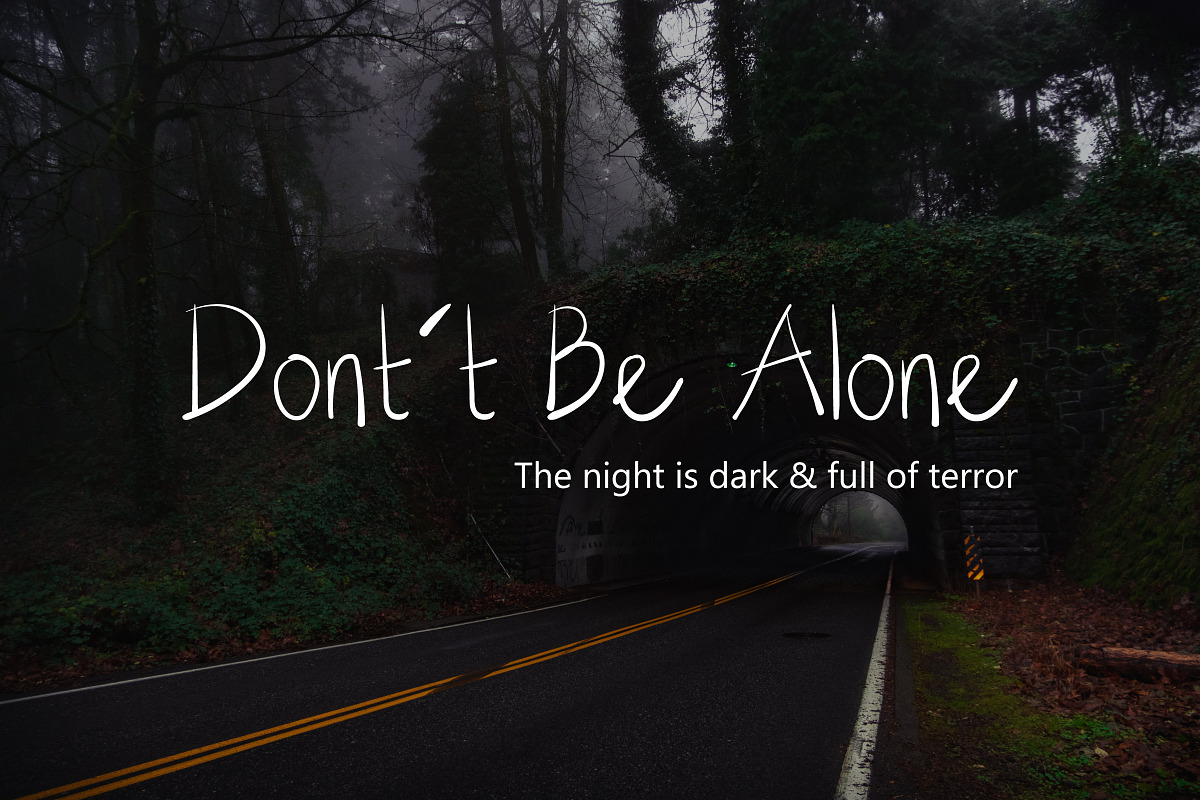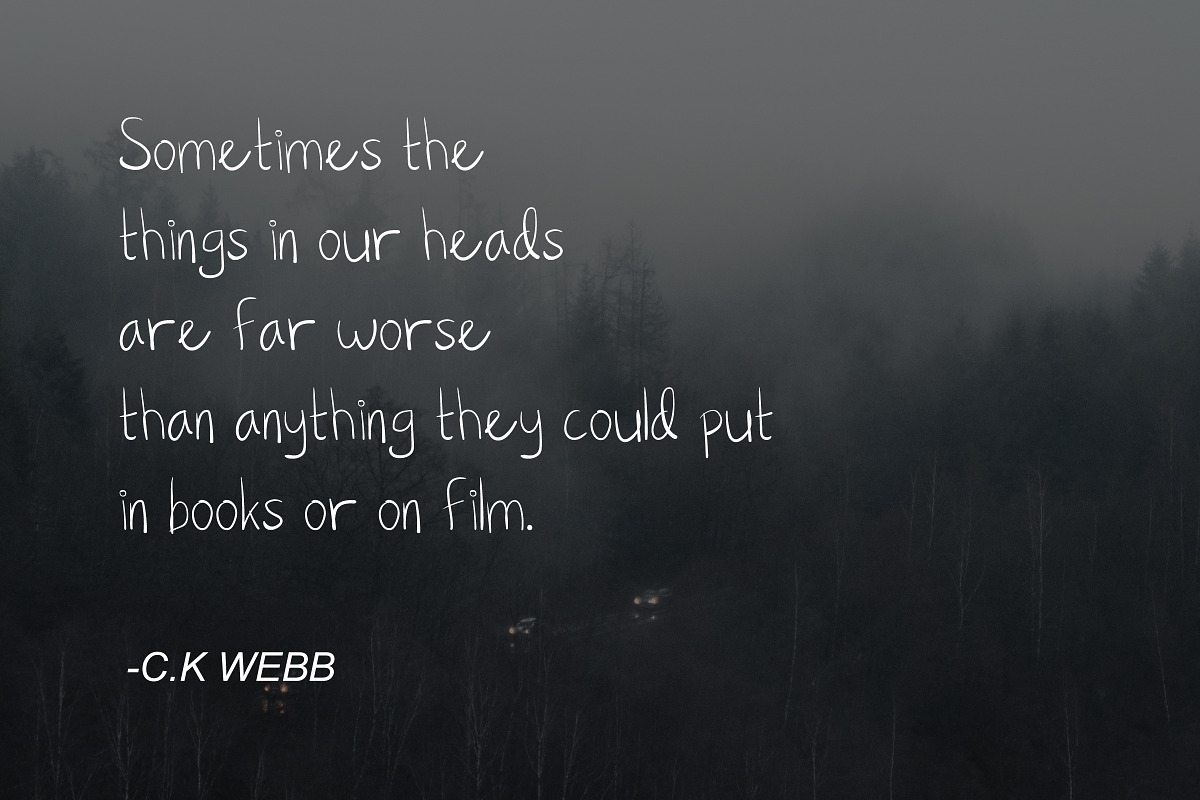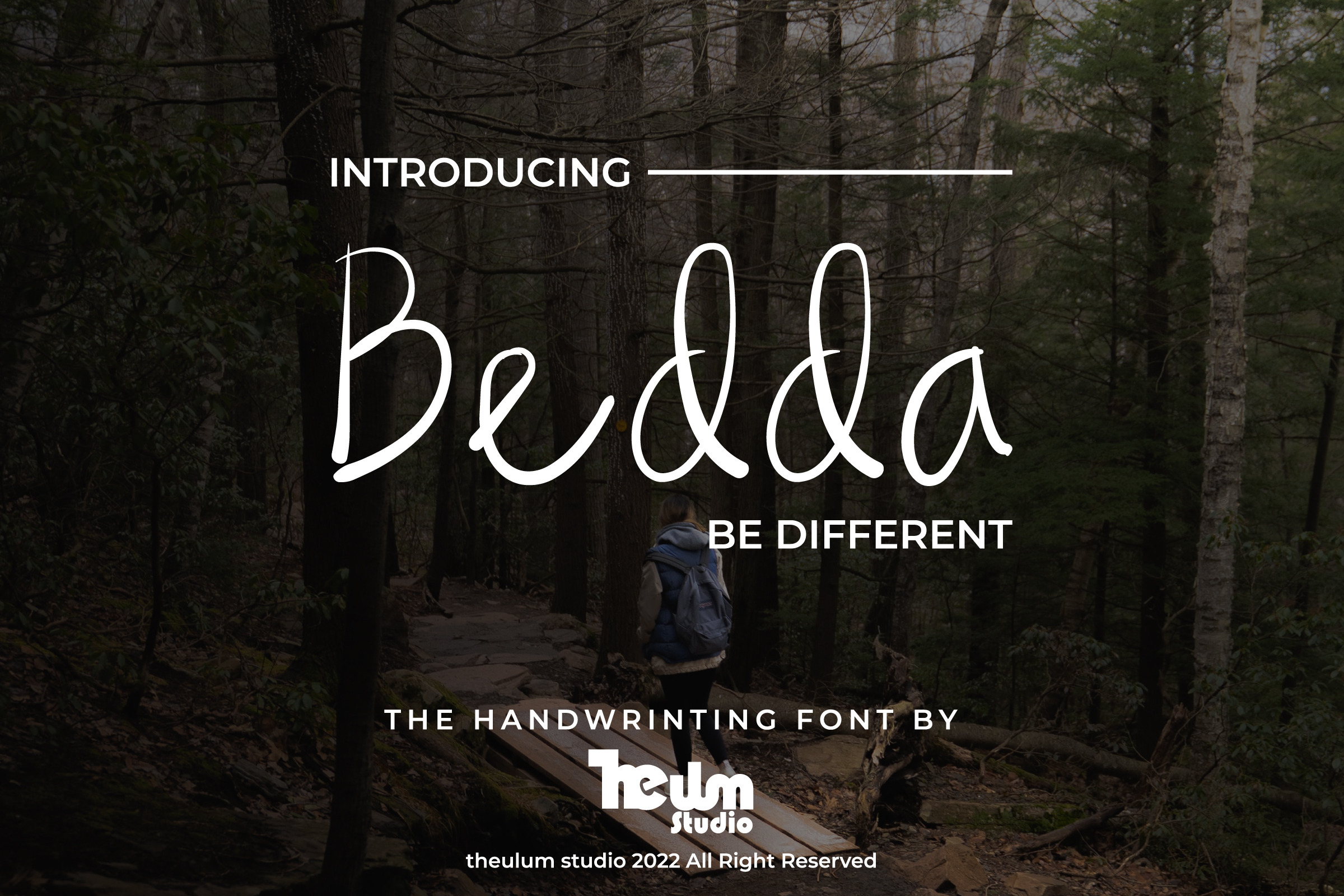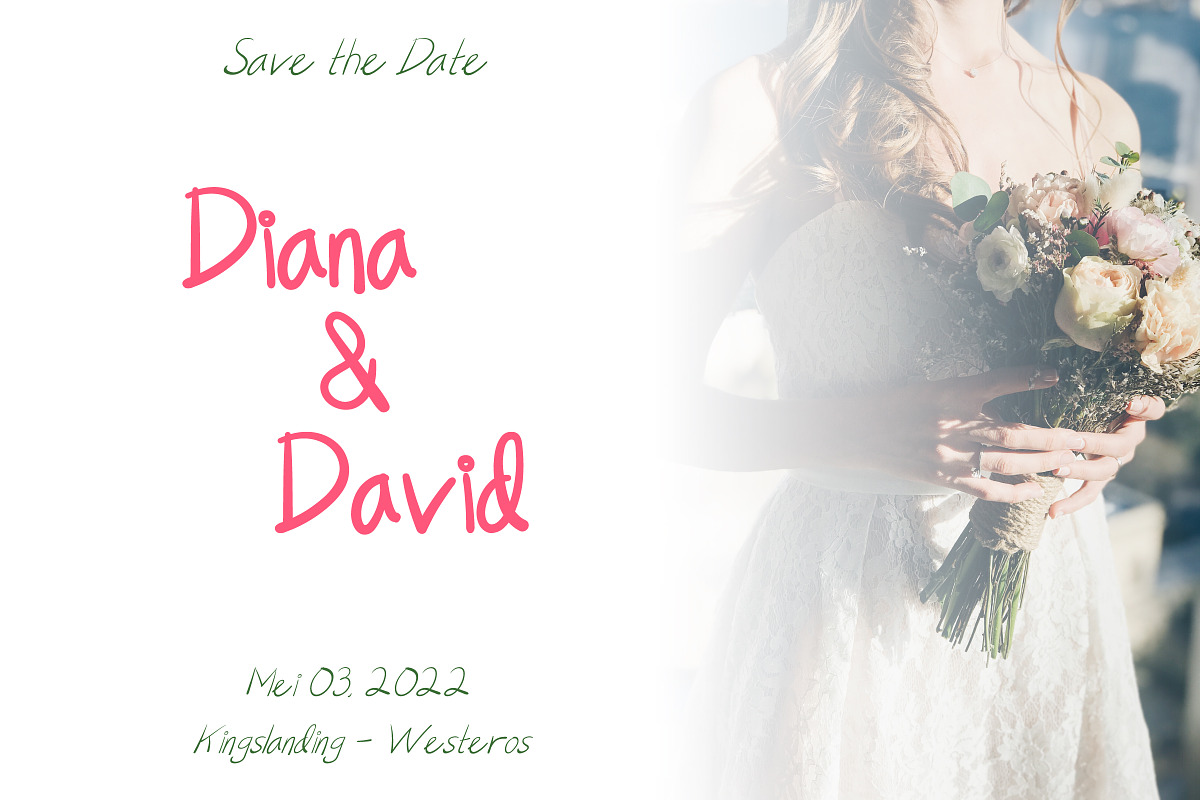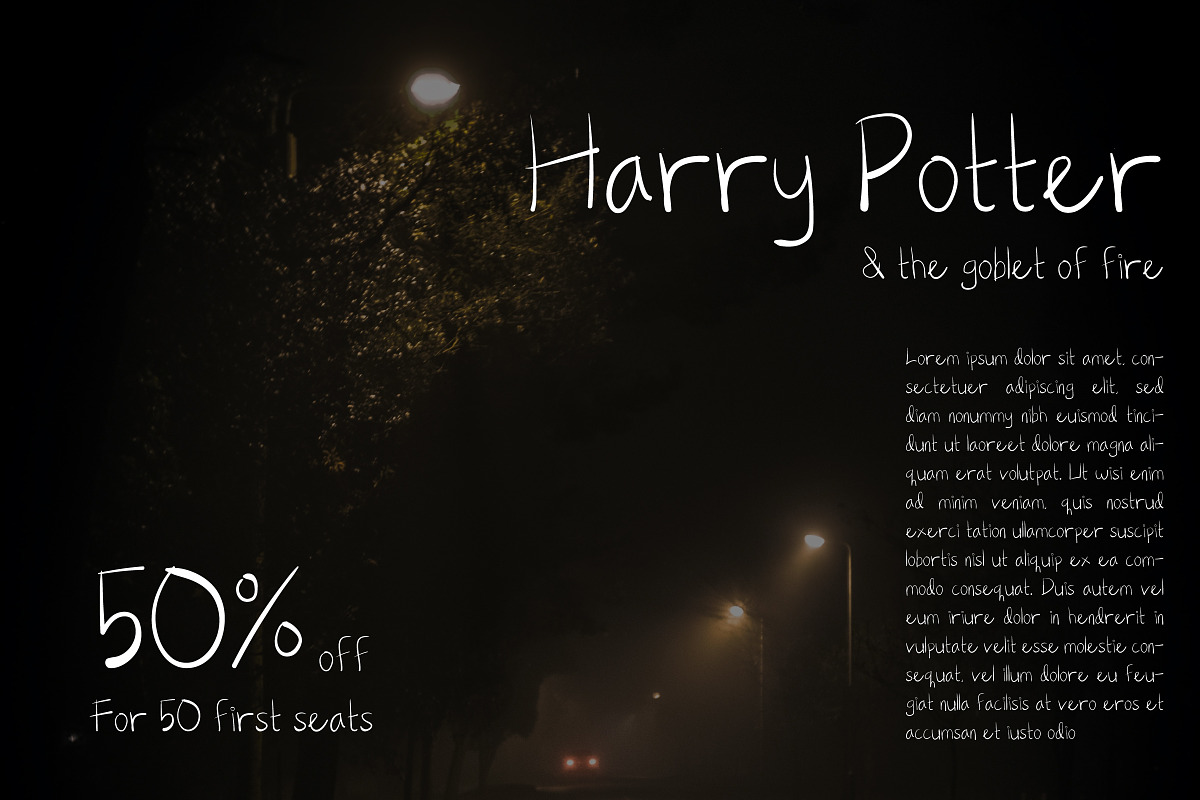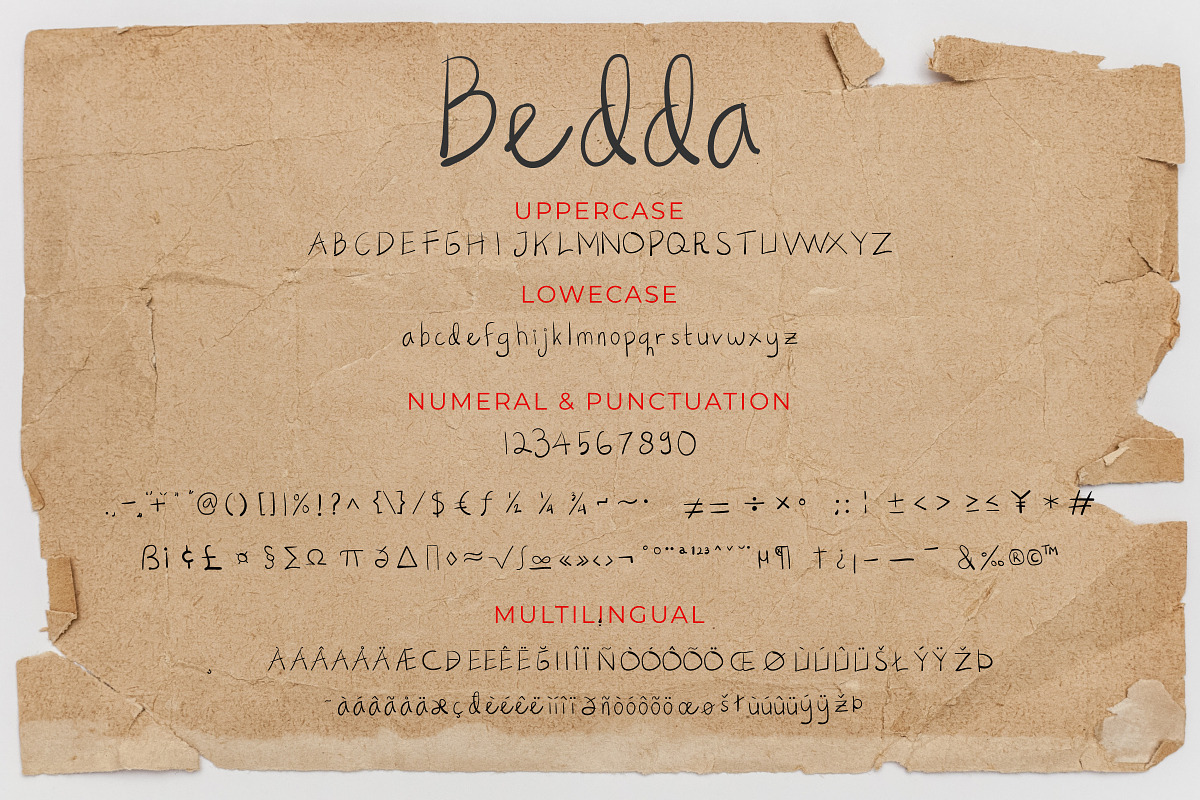
Bedda - Handwriting Font
Bedda is a sweet and friendly handwritten font. Its natural and unique style makes it incredibly fitting to a large pool of designs. The only limit is your imagination!
Bedda would perfect for photography, watermark, social media posts, advertisements, logos; branding, invitation, product designs, label, stationery, wedding designs, product packaging, special events or anything that need handwriting taste.
- Ton of glyphs (include Uppercase, Lowercase, Numerals & Punctuations, and available in Multilingual) Works on PC & Mac